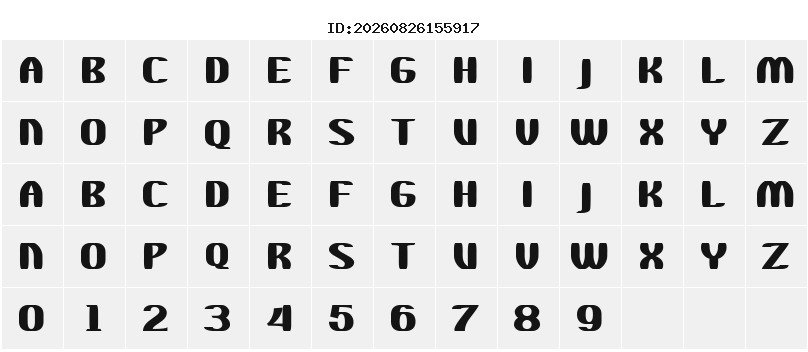
WaChaKa Preview
• Font Name: WaChaKa
• Full Font Name: WaChaKa
About WaChaKa.ttf
WaChaKa.ttf is a modern, elegant sans-serif font designed for ultimate readability and visual harmony. Perfect for branding, headlines, web design, and print materials.